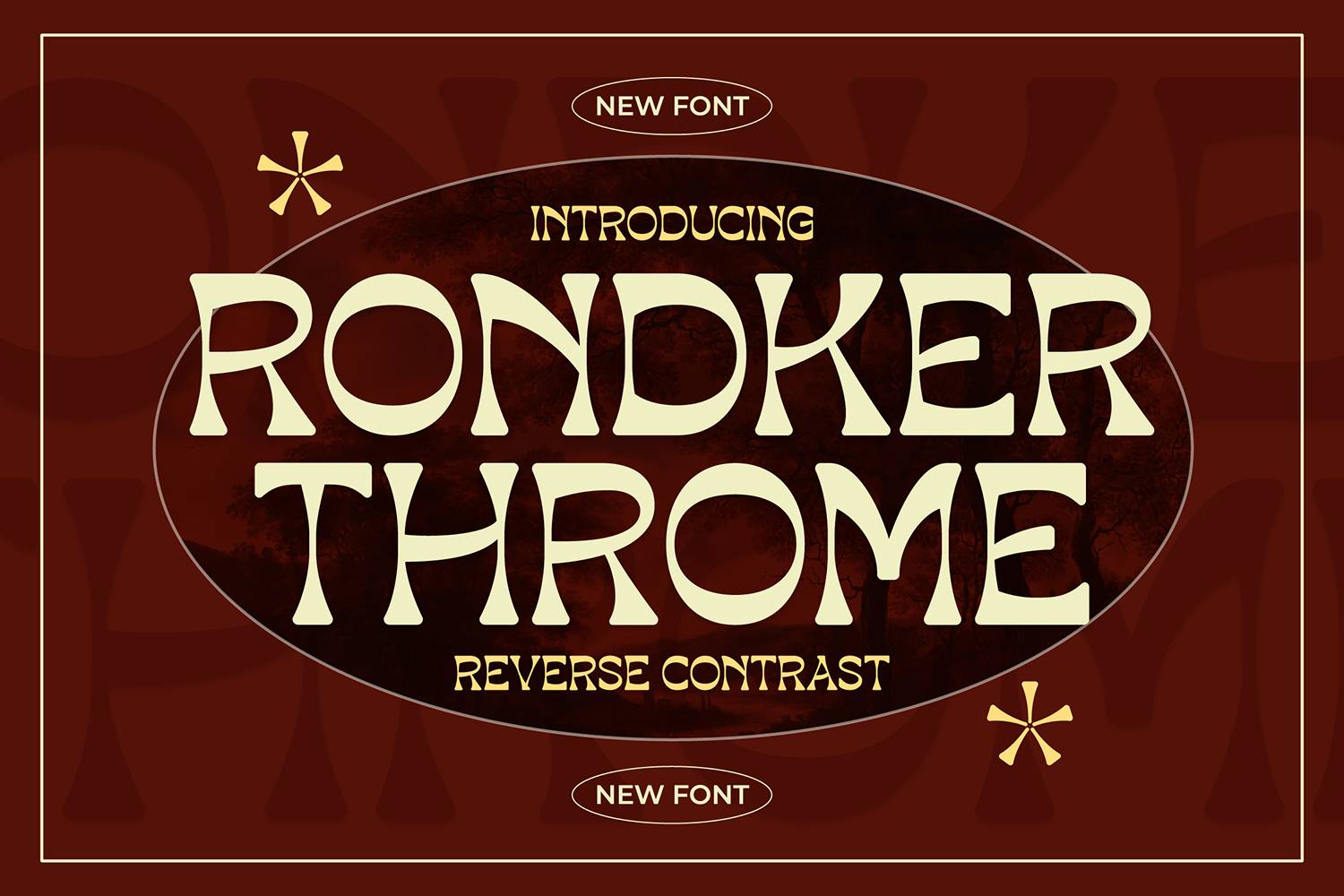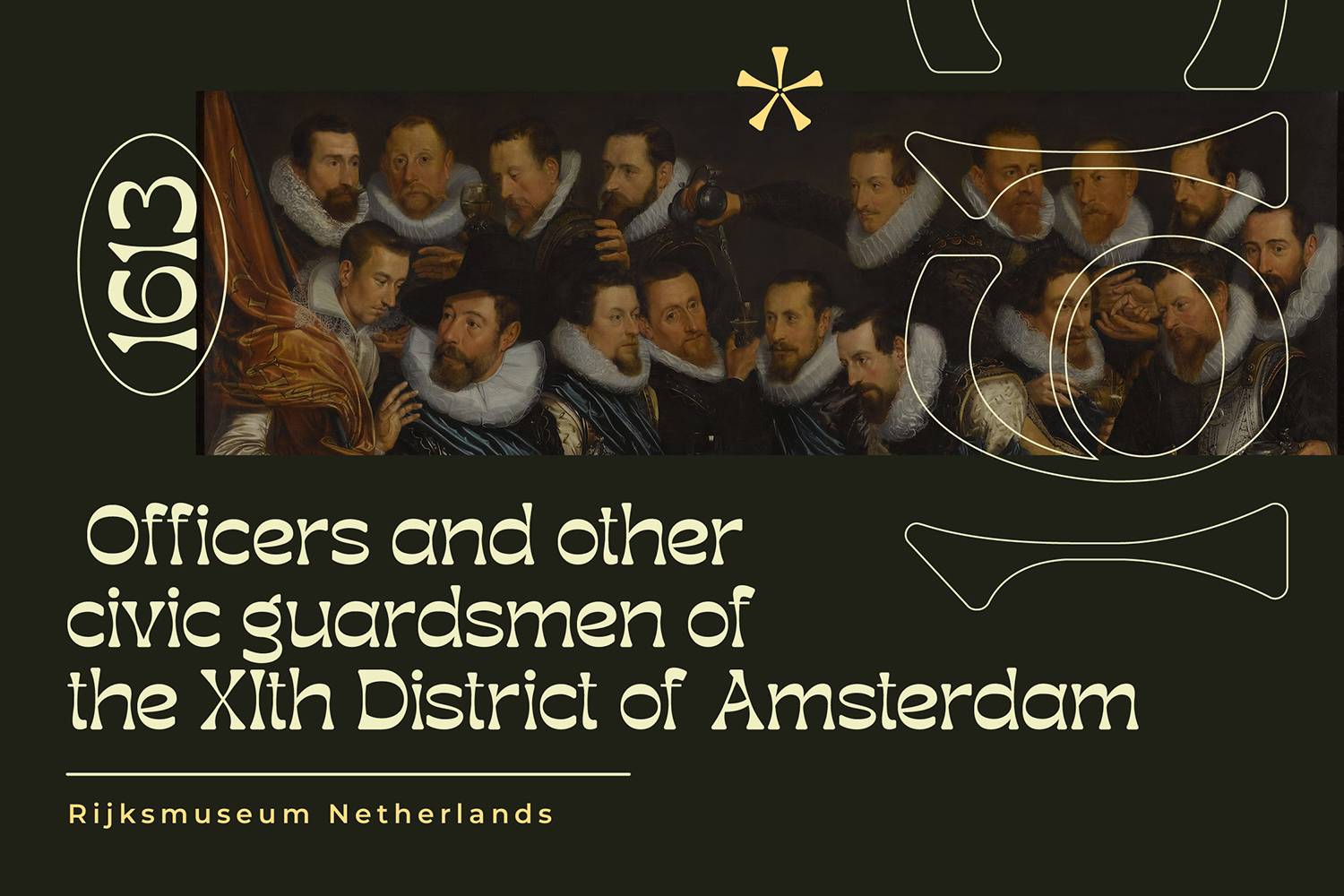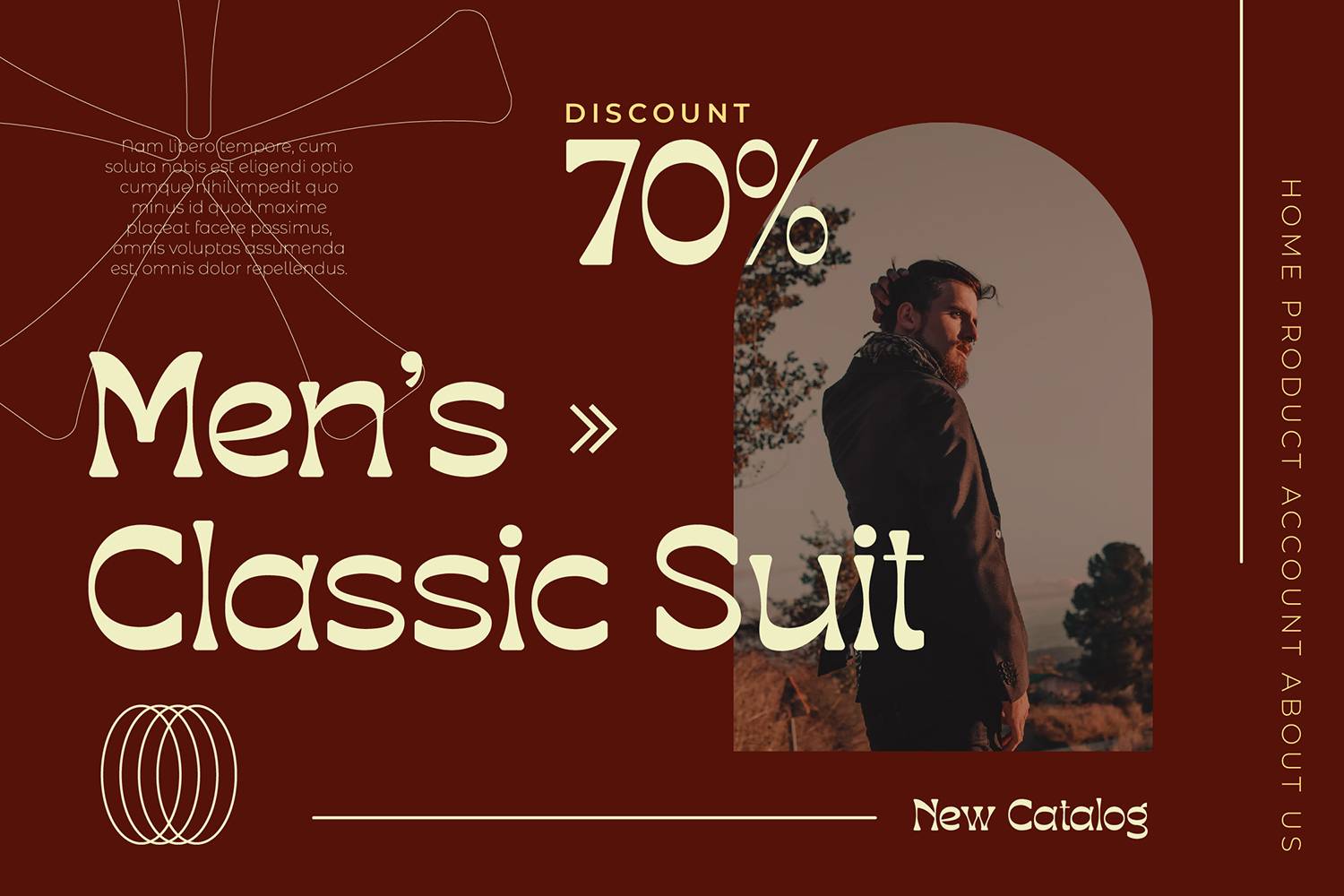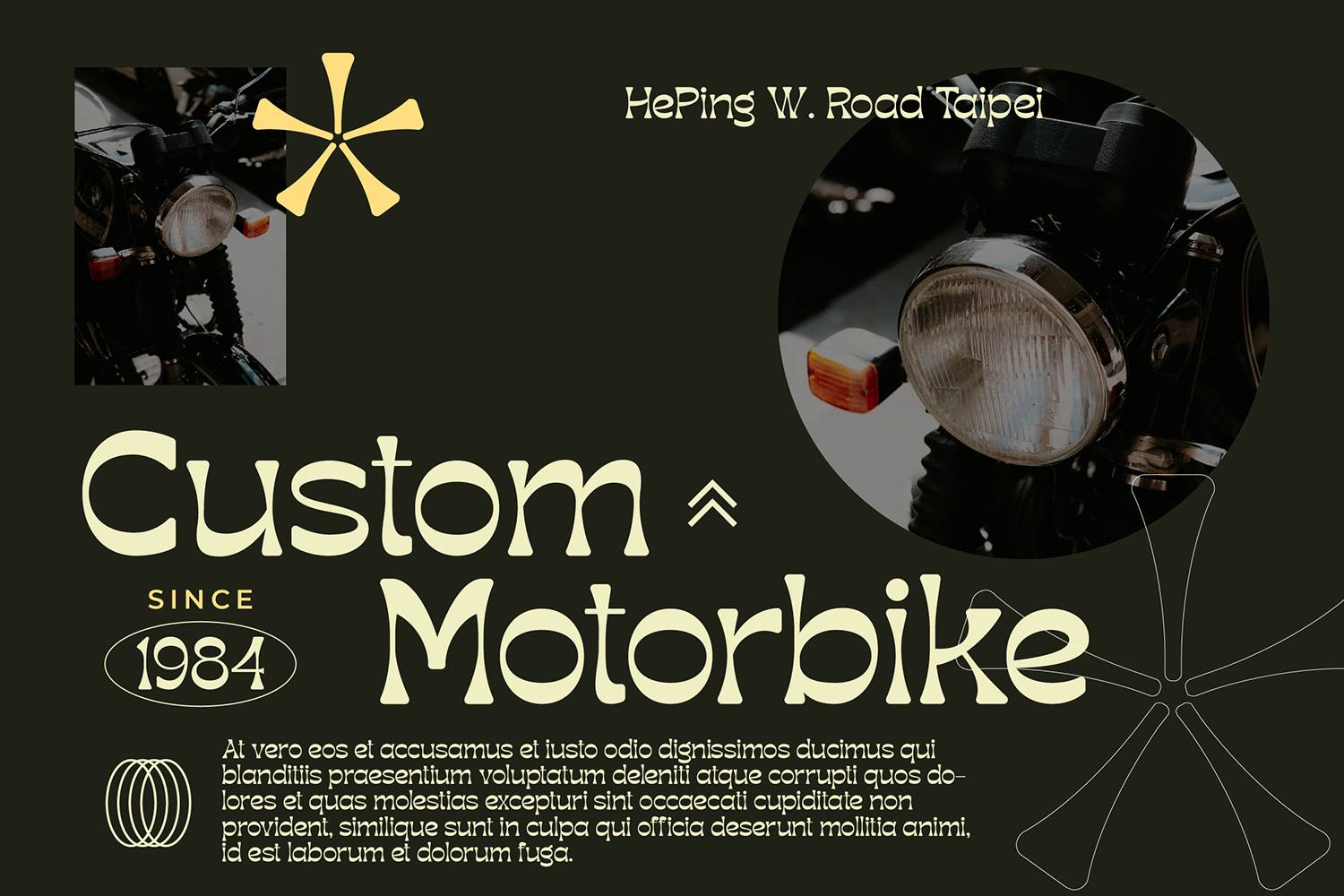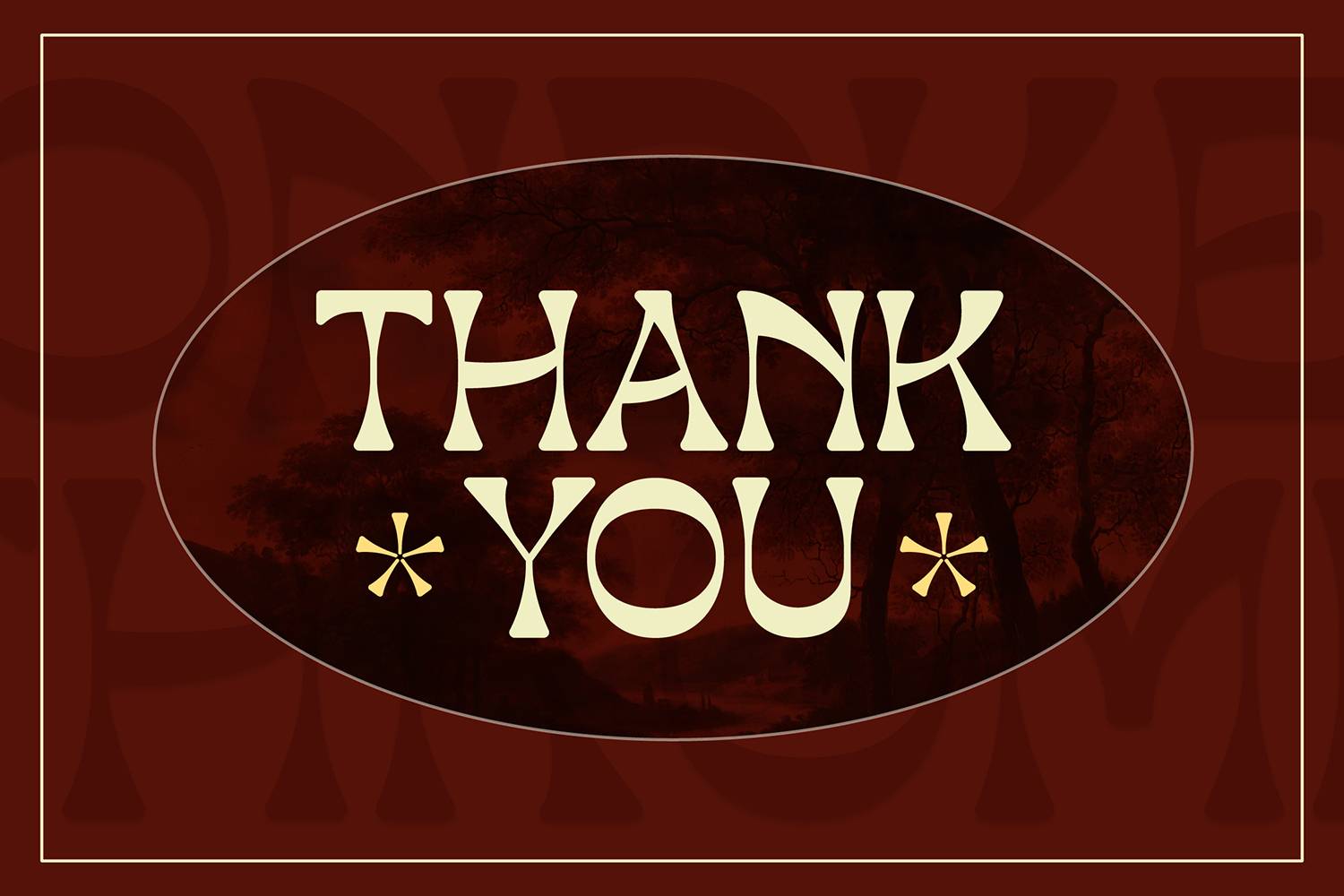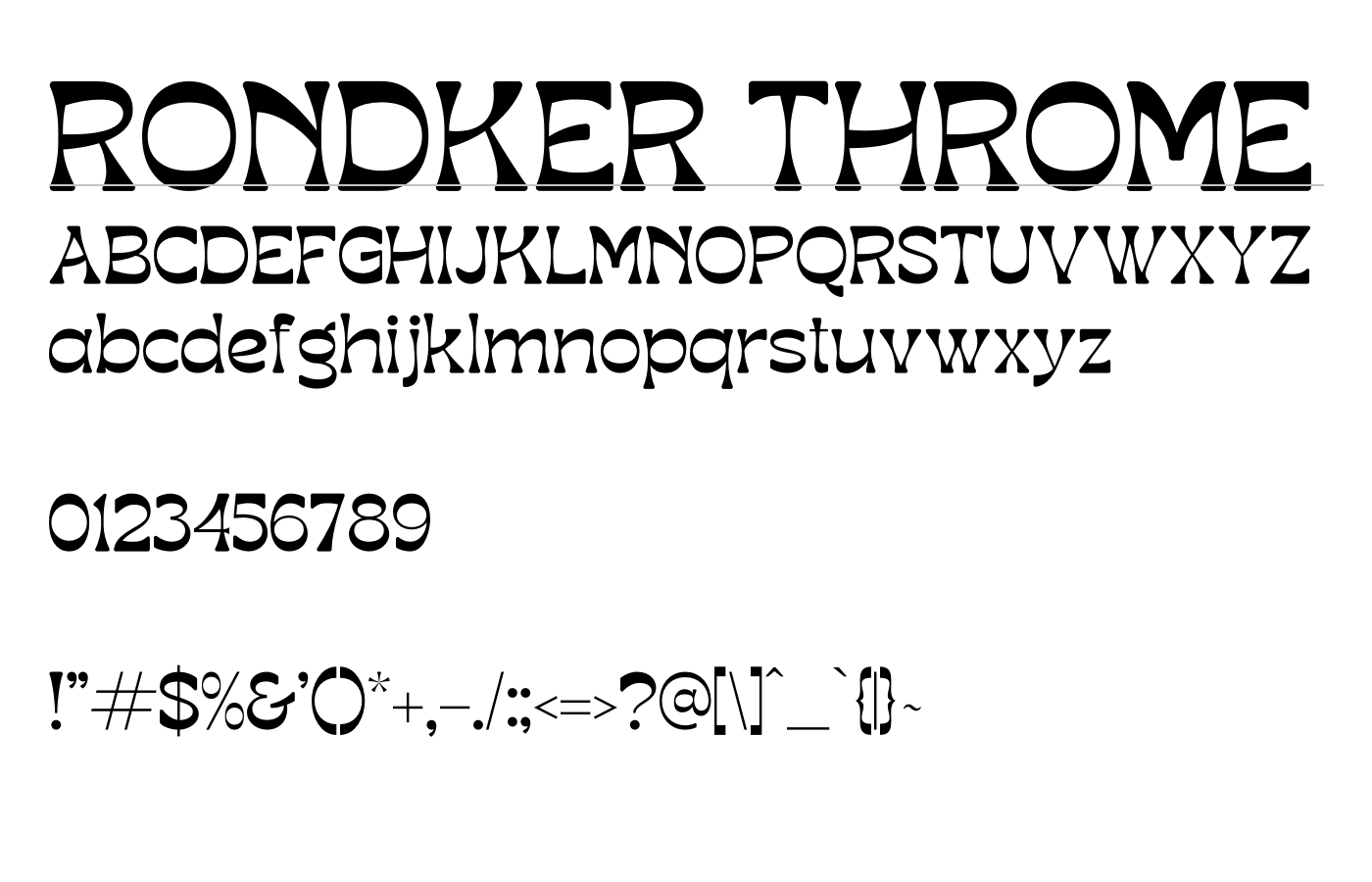
Rondker Throme is a quirky and playful serif font with a medium weight and normal width that features charming irregularities and unique stroke flair, giving it a hand-crafted feel. Its high contrast between thick and thin strokes and gently bracketed serifs create a distinctive, artistic look that works well for creative branding, posters, and headlines where personality and originality are key. This font adds a lively, whimsical touch while maintaining readability, making it ideal for projects seeking a fun yet elegant vibe.
Rondker Throme Font
About Rondker Throme Font